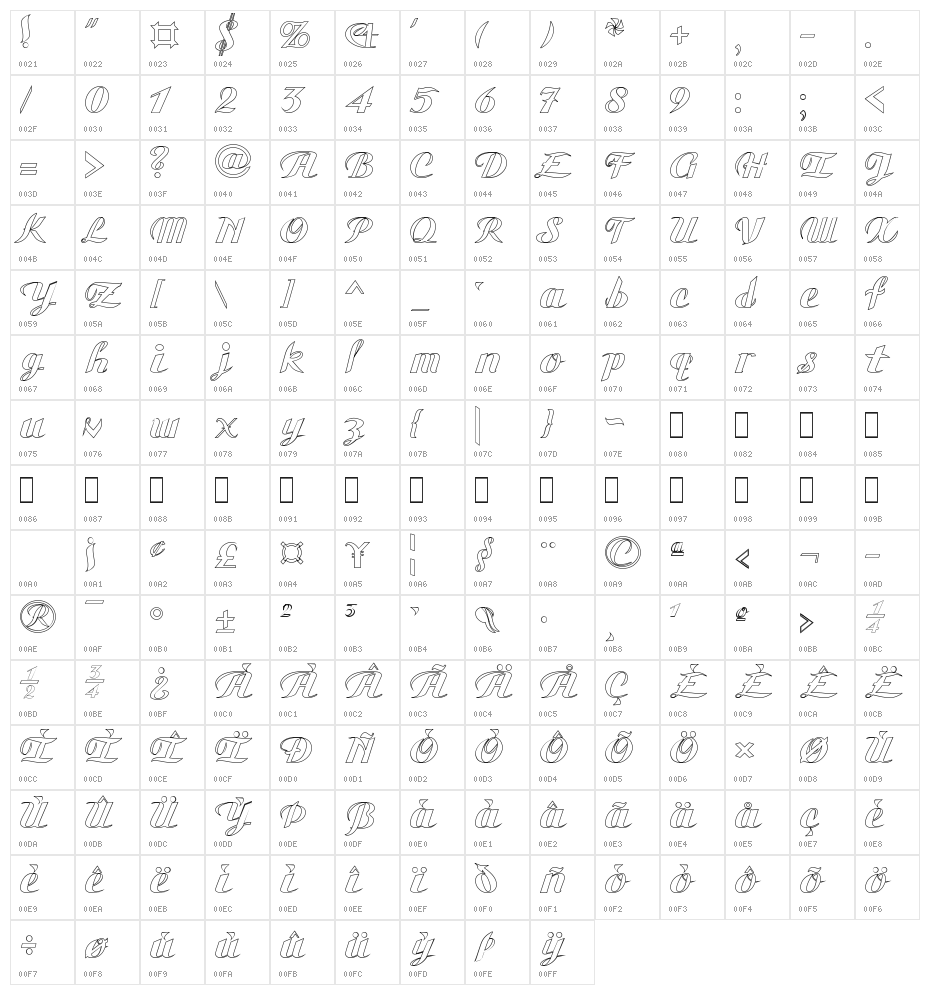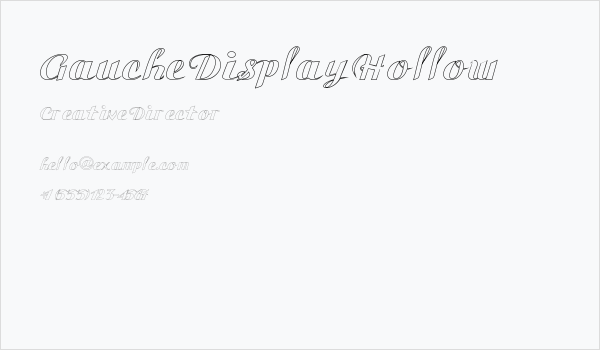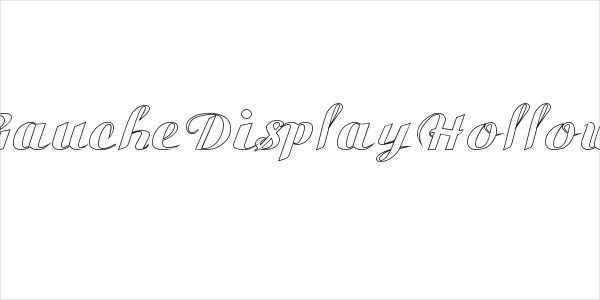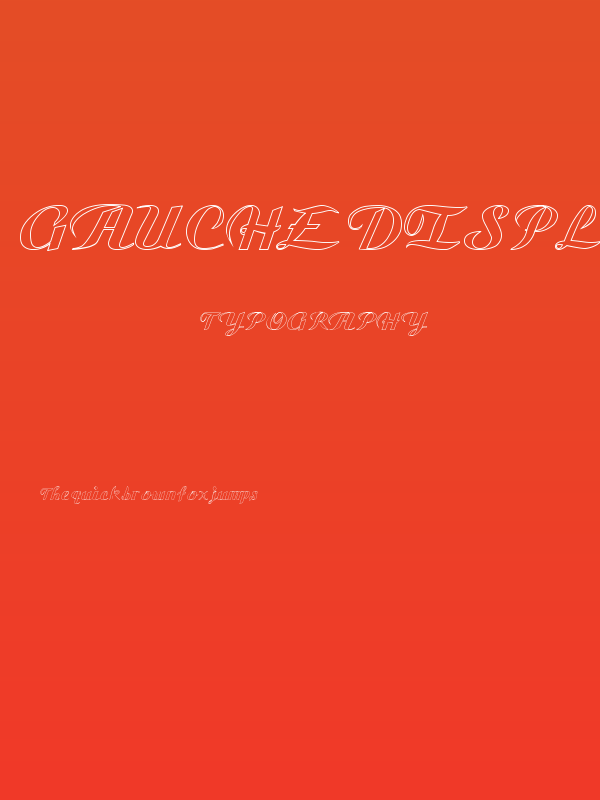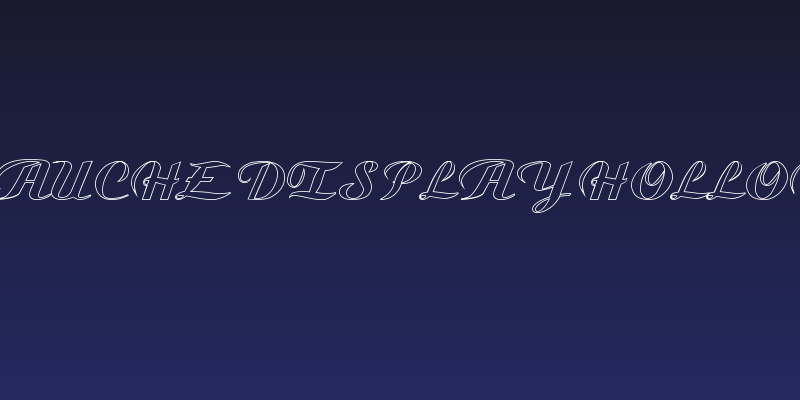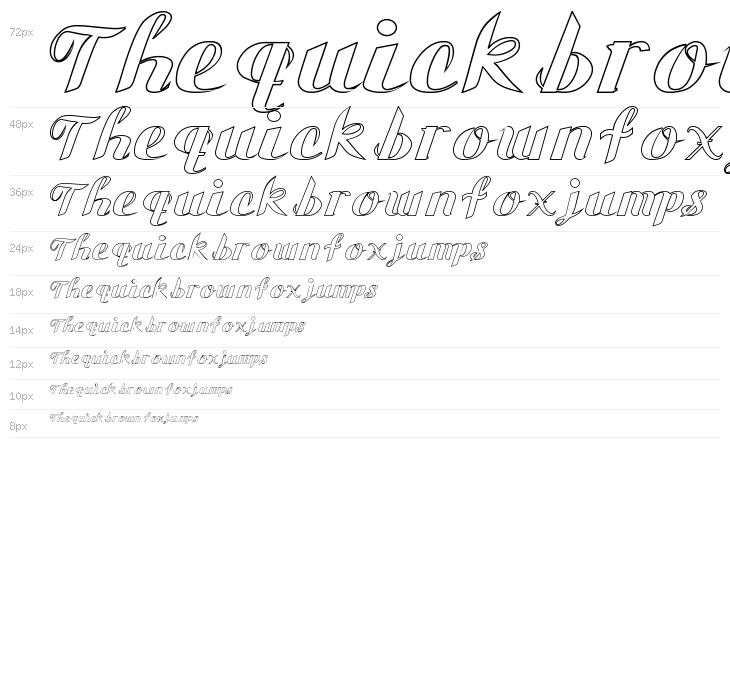
Gauche Display Hollow Font
Gauche Display Hollow Description
This font features a hollow, decorative style with a script-like appearance. The characters are outlined, giving them a unique, airy look that stands out. The uppercase letters have a bold, flowing design with sharp angles and curves, while the lowercase letters maintain a consistent style with a slightly more relaxed form. The numbers are distinct and follow the same hollow, outlined aesthetic. Special characters are creatively designed, adding to the font's overall playful and artistic vibe. This font is ideal for projects that require a bold statement with a touch of elegance and creativity.
| Proposed Projects | Ideal for creative projects such as posters, logos, and artistic invitations where a bold, decorative touch is desired. |